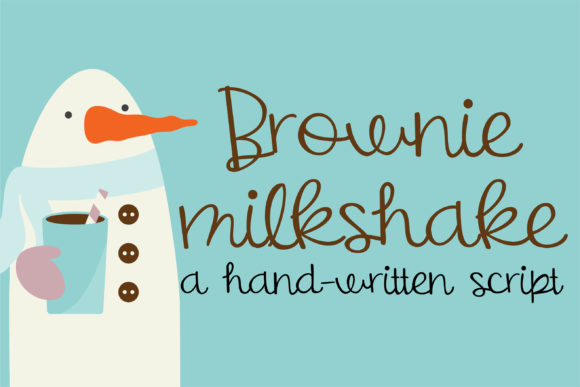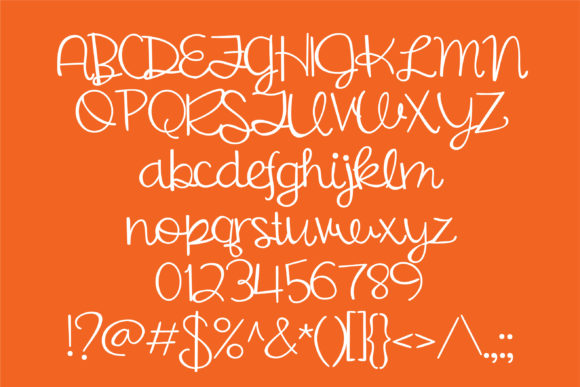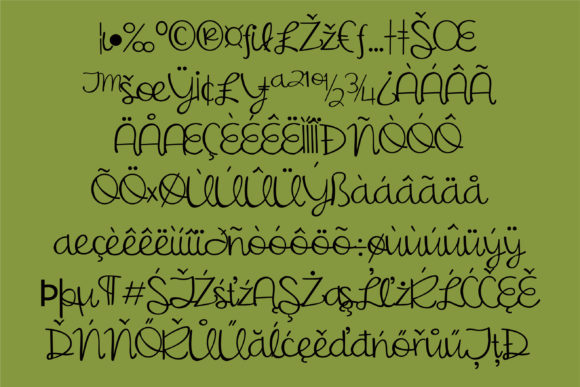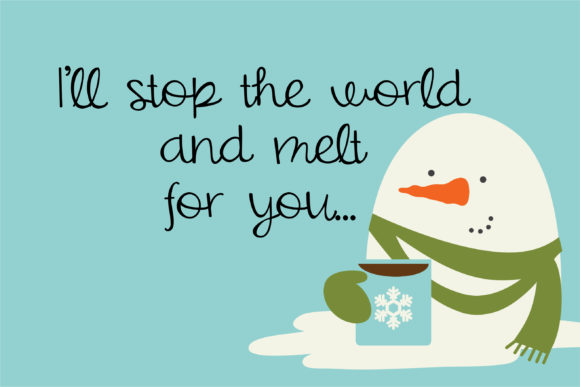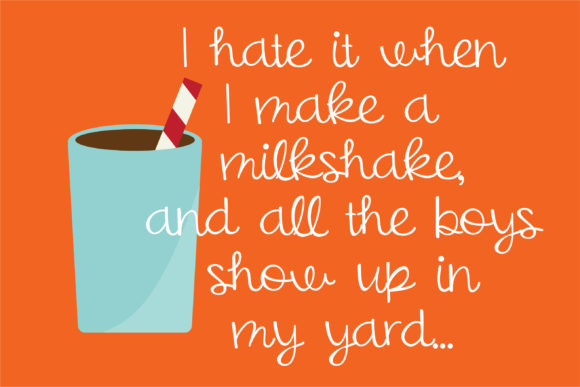
HomeScript FontsBrownie Milkshake Font Script Fonts Brownie Milkshake Font FacebookXPinterestWhatsApp Brownie Milkshake Font Poster 2 Brownie Milkshake Font Poster 3 Brownie Milkshake Font Poster 4 Brownie Milkshake Font Poster 5 About Brownie Milkshake Font Sweet like the drink, Brownie Milkshake is a fun and lovely handwritten font with a distinctly joyful feel. DOWNLOAD ON CREATIVE FABRICAThis font is sold and delivered by Creative Fabrica. Font Canyon may earn a commission if you buy through this link. People also explored Thank You Baby Font Silhouette Font Serendipity Font Why Do You Ask Me Font Sunshine Smiles Font Monday Font Handwash Font Jatina Font Aokiji Font 282 0 TagsBrownie Milkshake Font Previous articleClackulator FontNext articleYakety Script Font LEAVE A REPLY Cancel reply Comment: Please enter your comment! Name:* Please enter your name here Email:* You have entered an incorrect email address! Please enter your email address here Website: Save my name, email, and website in this browser for the next time I comment. Personal Use Free Bakk Trieng Personal Use Free Read more about this font Dakwart Letter Personal Use Free Read more about this font Quick Count Personal Use Free Read more about this font Callisa Script Personal Use Free Read more about this font BLOG 5 Fonts That Will Dominate Design Trends in 2026 5 Fonts for 2026 That Will Dominate Design Trends Typography plays a critical role in visual communication, and as we look ahead to 2026, it’s... Elegant Wedding Invitation Fonts – Handwritten & Script Fonts Free vs Paid Fonts: Why Investing in Premium Fonts Is Worth It Best Fonts for T-Shirt Design – Top 2025 Picks